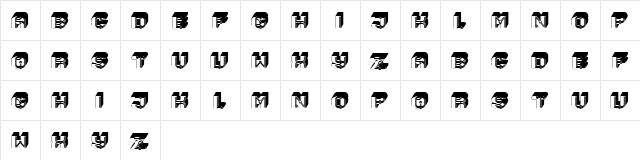
Labor Regular Font Preview
Labor Regular
Design Context for Labor Typeface
Labor is a composed and adaptable typeface that performs quietly and consistently across a wide range of design contexts.